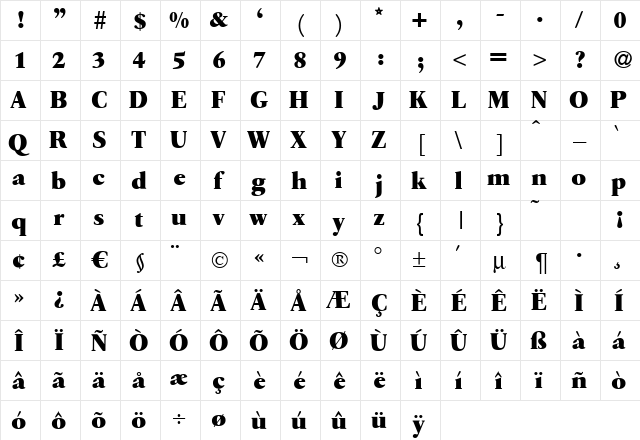
Q650-Roman-Xbold Regular
Design Context for Q650-Roman-Xbold Typeface
Q650-Roman-Xbold offers clean, dependable letterforms without strong stylistic allegiance, making it a practical choice for designers who need flexibility. The heavy weight commands attention and anchors typographic hierarchies.